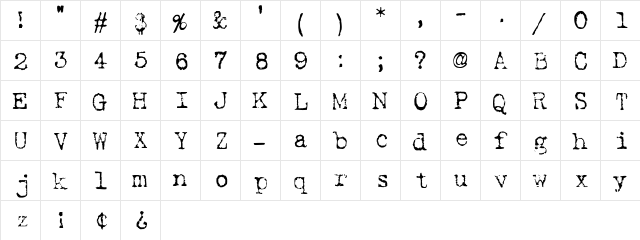
Antique Mono TW Medium
Design Context for Antique Mono TW Typeface
Antique Mono TW wears its vintage influences proudly, with letterforms that recall mid-century signage, classic packaging, and nostalgia-driven design.
Font Pairing: Combine Antique Mono TW with a simple slab or neutral sans — period-accurate companions reinforce the vintage feel without competing for attention.
Pro Tip: Use Antique Mono TW for headlines and pull quotes rather than body copy — its personality is best appreciated in short, focused bursts.